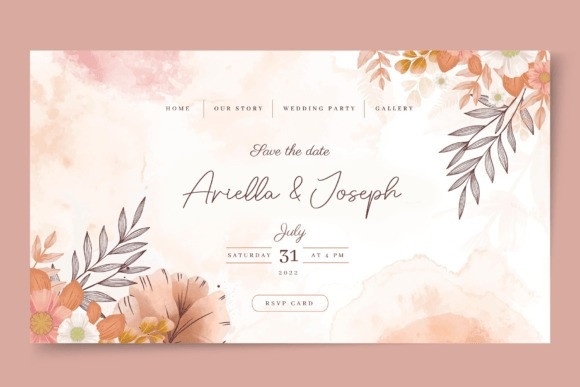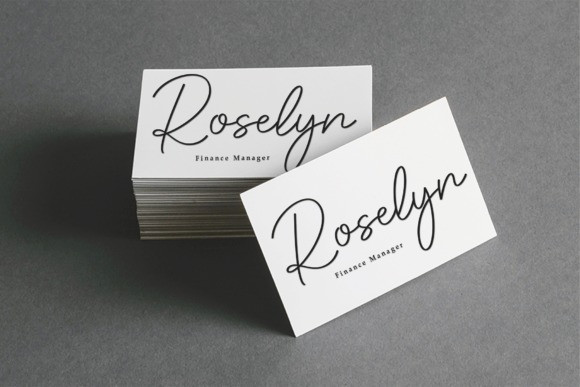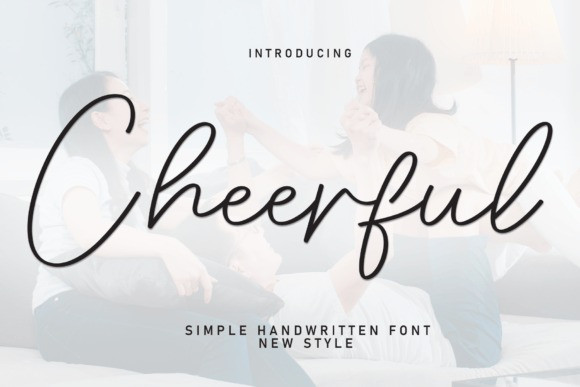
Cheerful Script Font
Cheerful Script Font is a clean, relaxed, and friendly handwritten font. Suitable to a wide variety of designs due to its neat and simple style, this font has the potential to become your favorite go-to font, no matter the occasion!